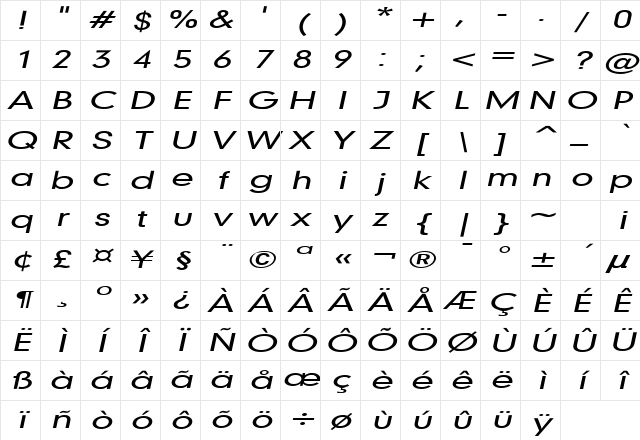
Geo 579 Extended Italic
Geo 579 Extended Family
Design Context for Geo 579 Extended
Geo 579 Extended is a composed and adaptable typeface that performs quietly and consistently across a wide range of design contexts. The slanted form adds forward momentum and visual energy.
Pro Tip: Use Geo 579 Extended for emphasis, pull quotes, and subheadings where its slanted energy can add rhythm to the layout.